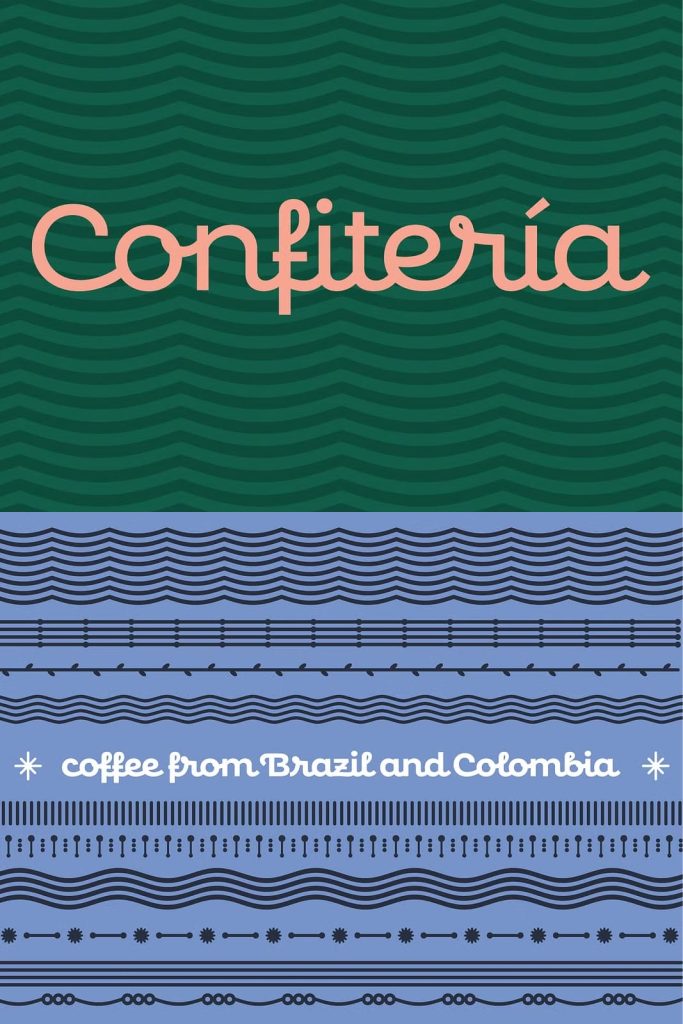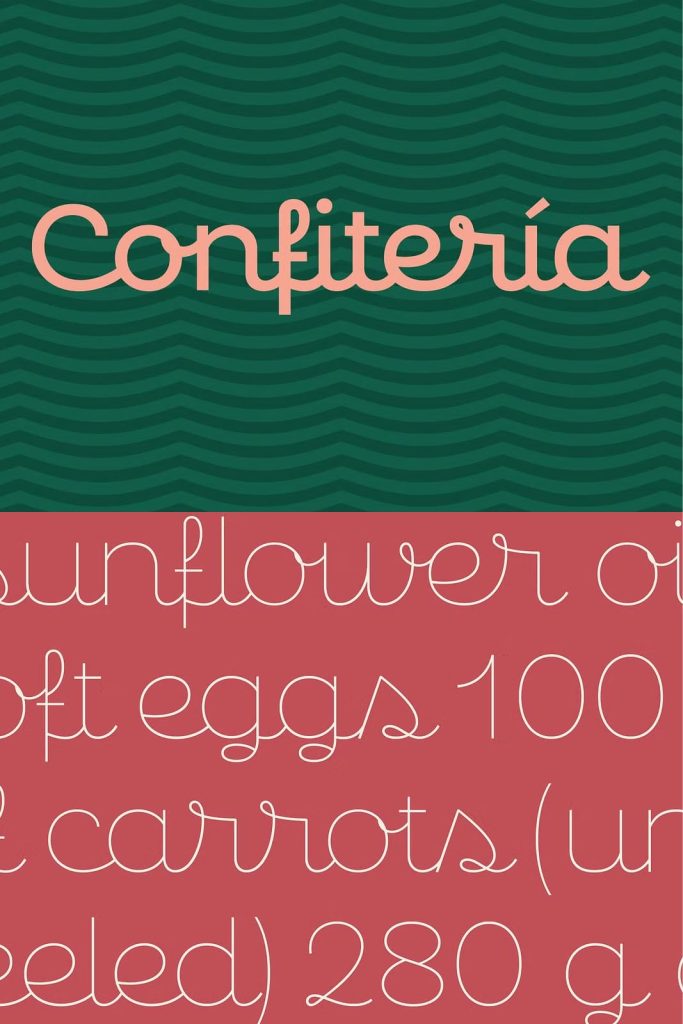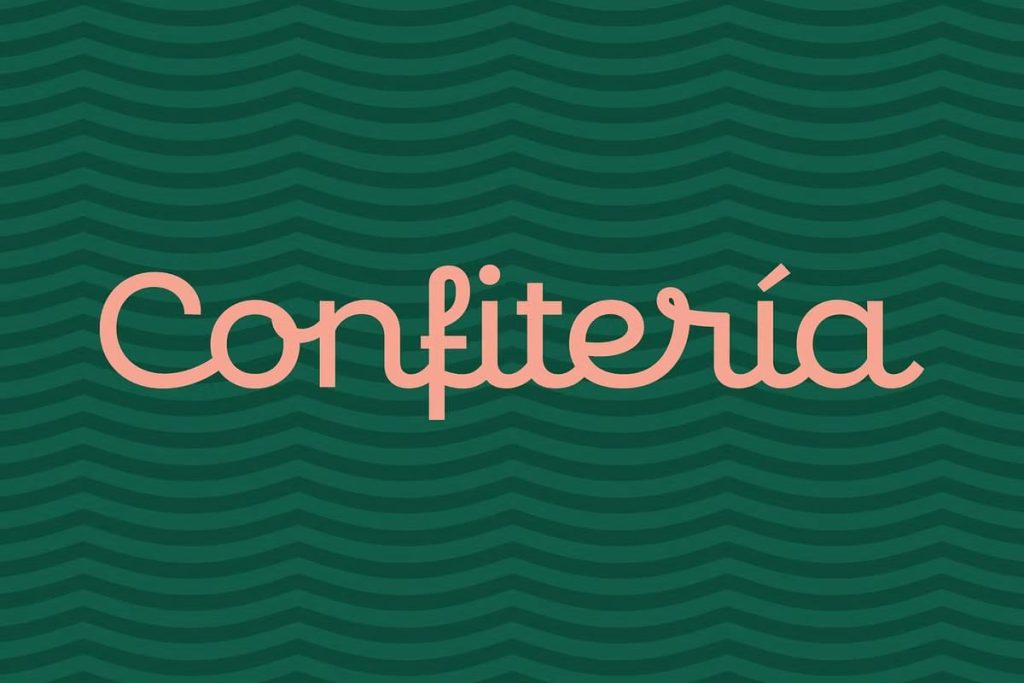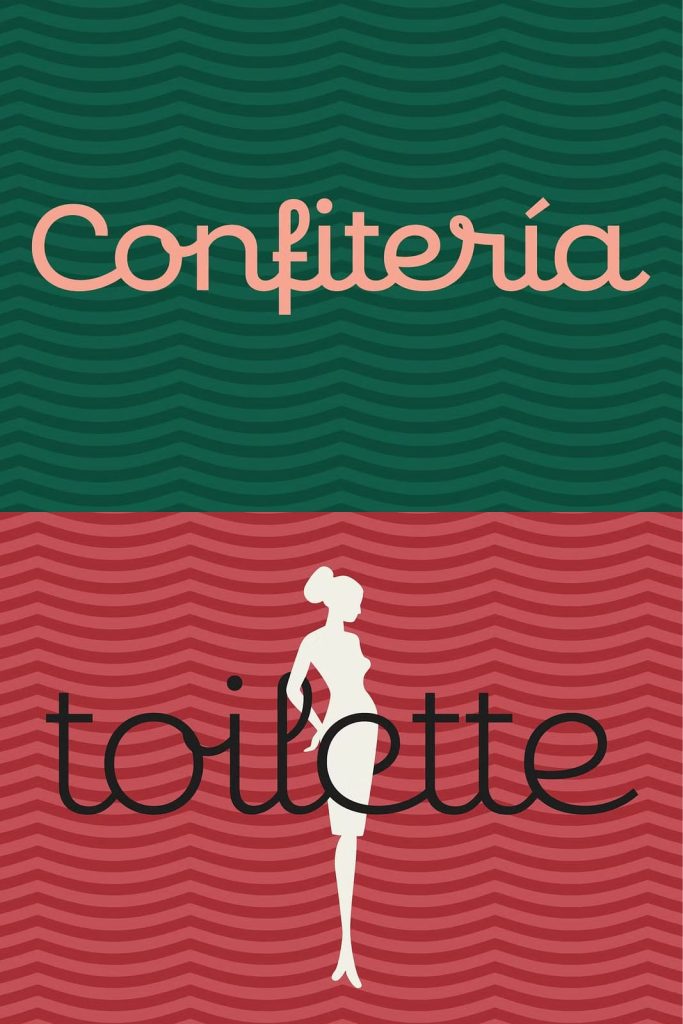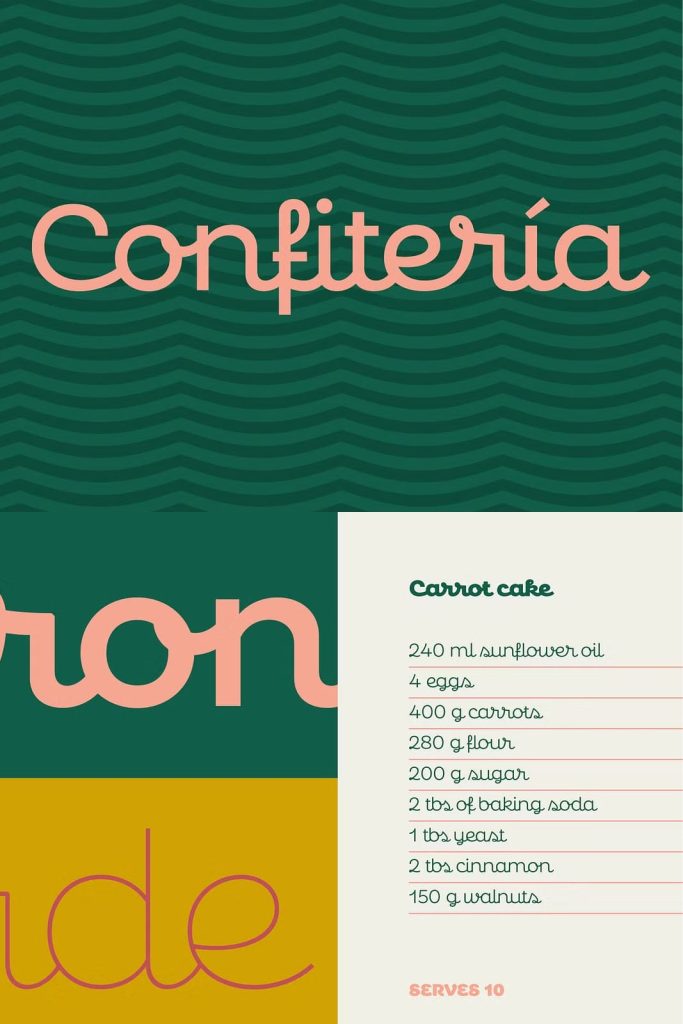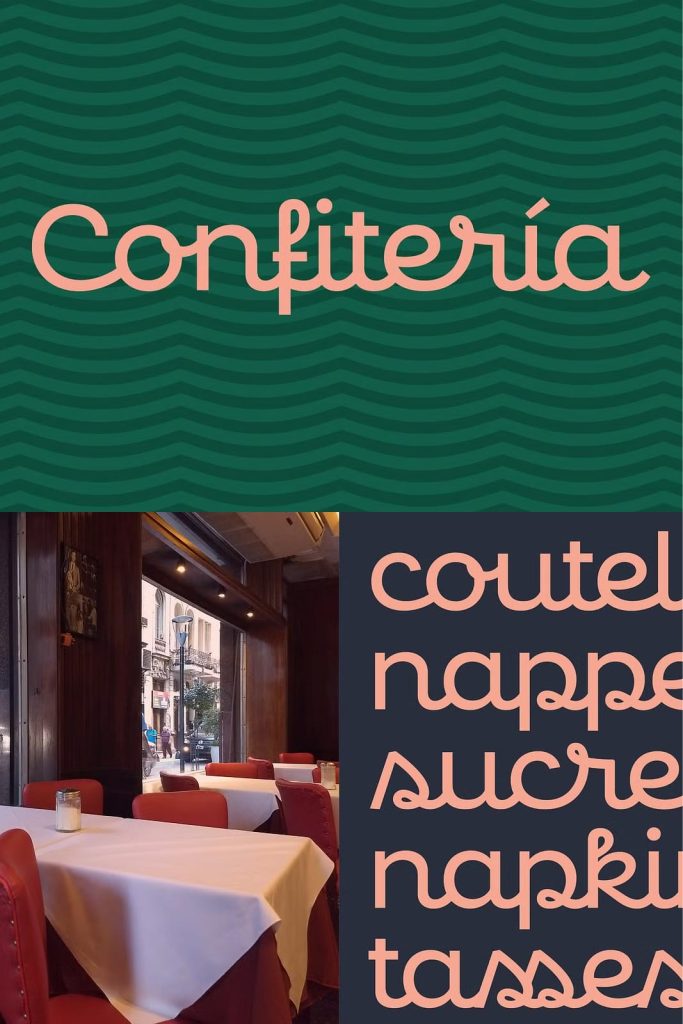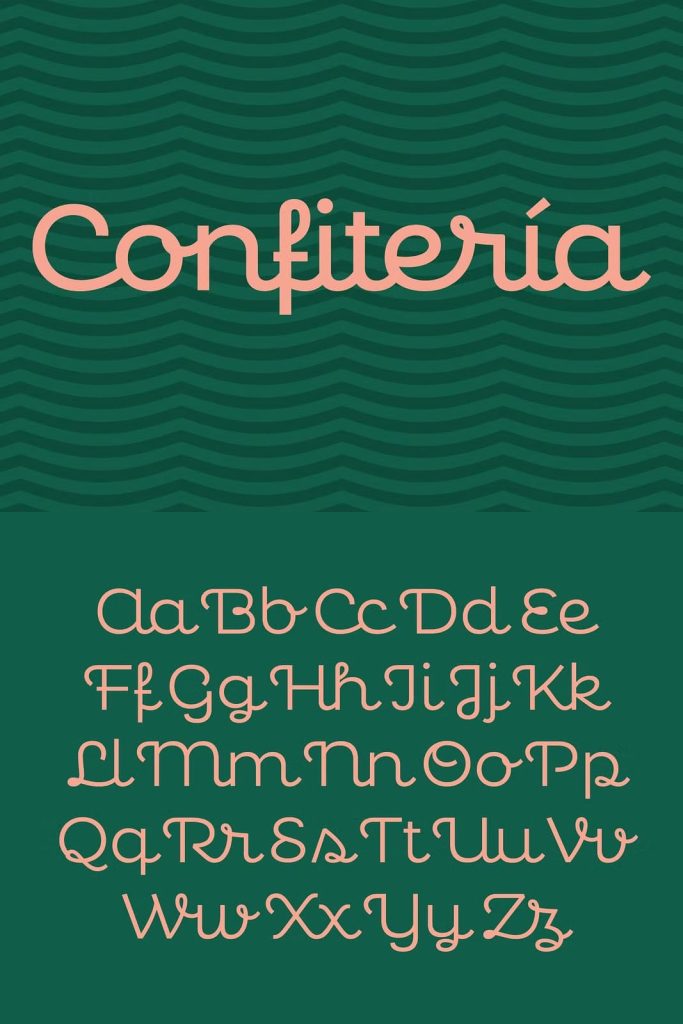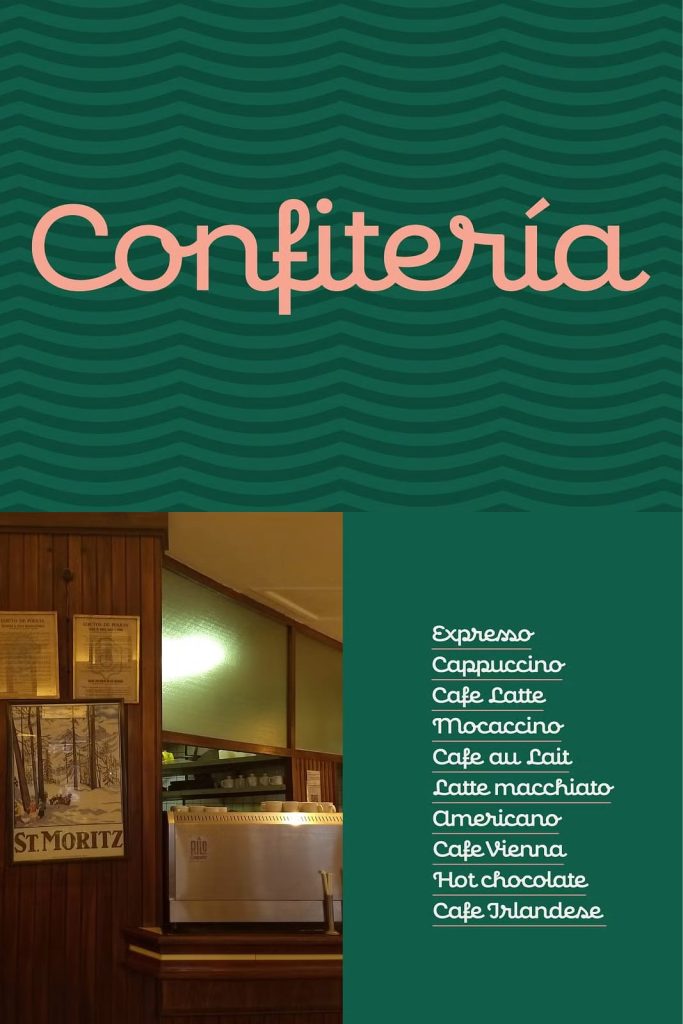
Confitería is the Spanish word for a shop where sweets and chocolates are made and sold, which sometimes has a tea room. And now Confitería is also a font that brings to mind lettering piped on delicate cakes … sweet but never sickly. This font captures something of that simple and innocent beauty of traditional confiterías,
where good manners will never go out of fashion, menus are elegant and time comes to a standstill to make way for life’s little pleasures. A confitería is a perfect place to share sweet tidbits with a friend or date, eavesdrop on the conversation at the next table, read a book, or just people-watch from the window.